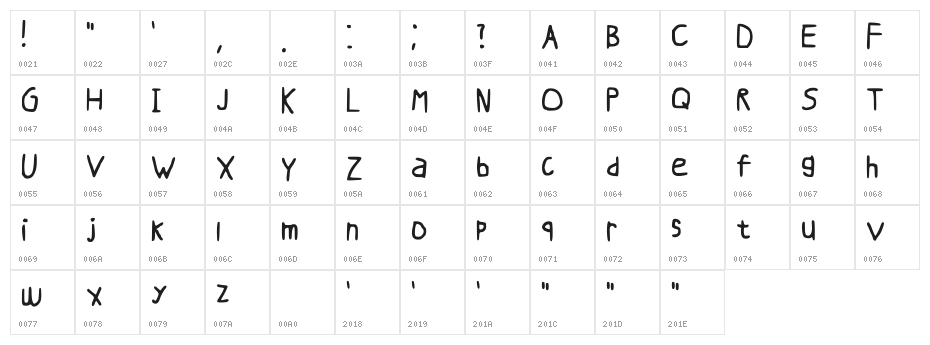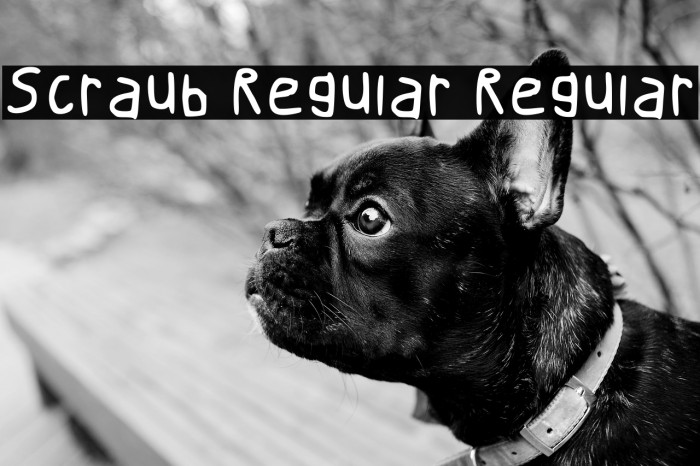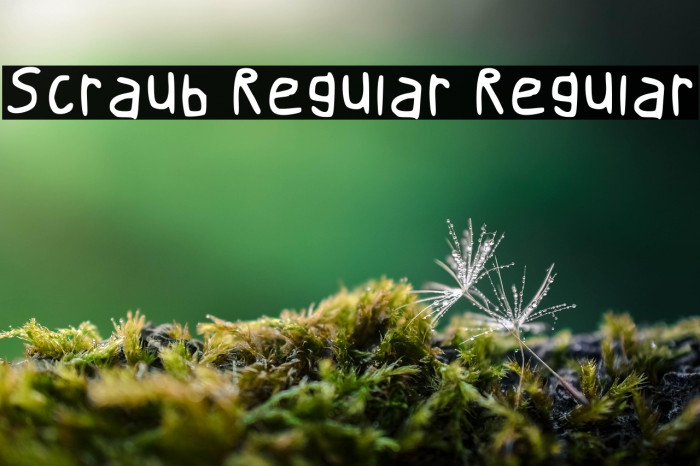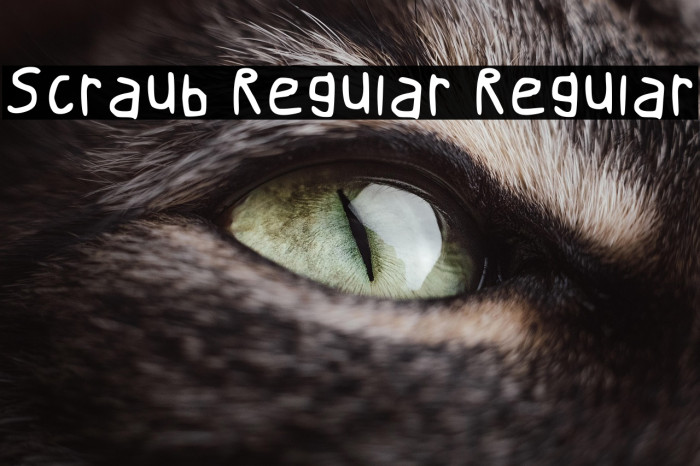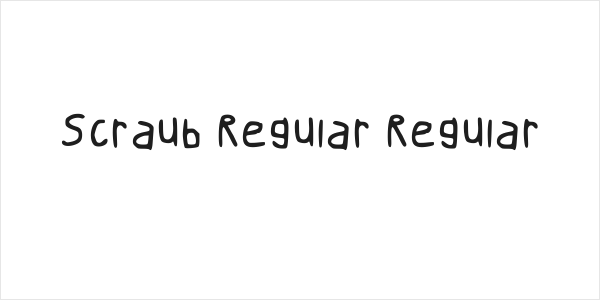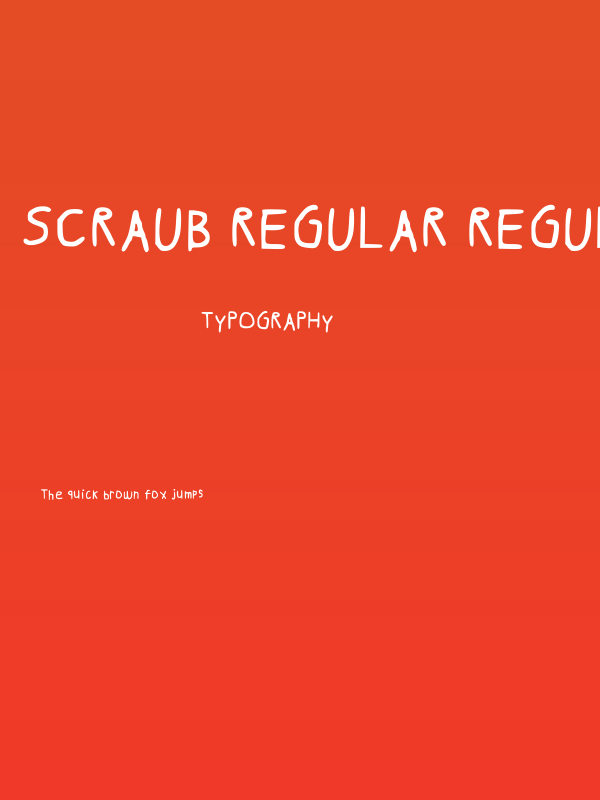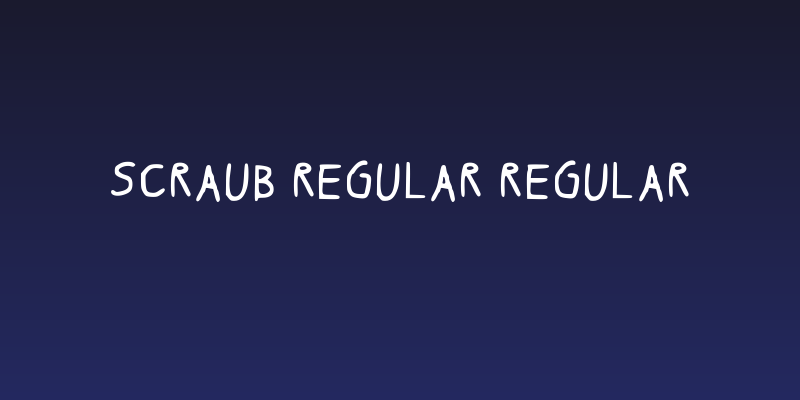
Scraub Regular Font
Scraub Regular Description
This font features a playful and informal style with a hand-drawn appearance. The letters are slightly irregular, giving it a casual and approachable feel. The strokes are consistent in thickness, contributing to a uniform look despite the whimsical design. The uppercase and lowercase letters maintain a cohesive style, with rounded edges and a slightly uneven baseline. The numerals and special characters follow the same playful aesthetic, making the font suitable for creative and informal projects.
| Proposed Projects | Ideal for children's books, greeting cards, posters, and creative branding projects. |